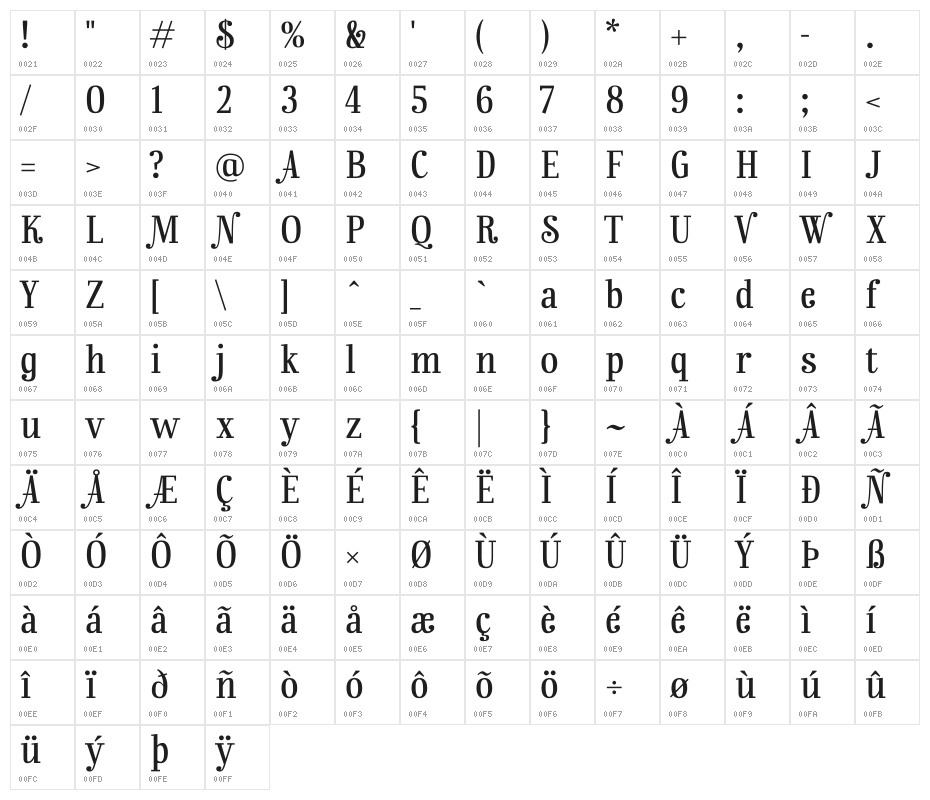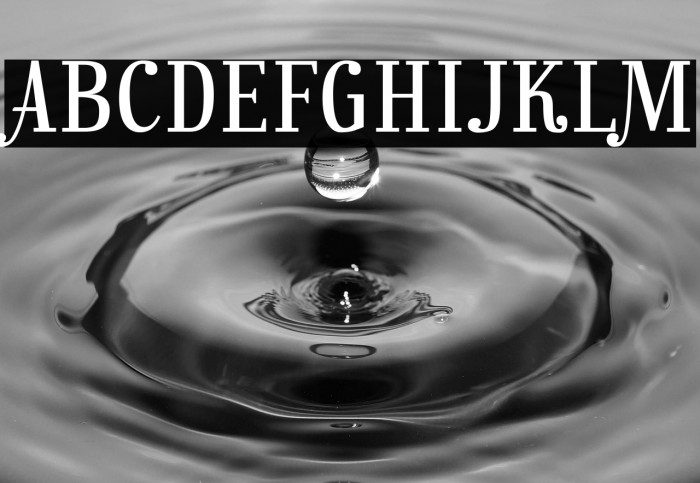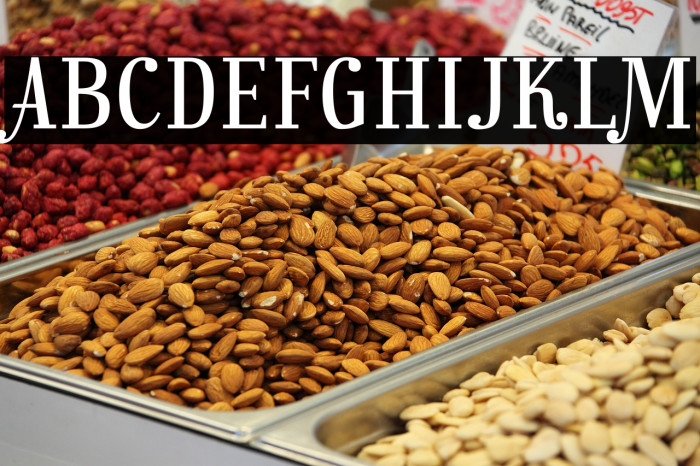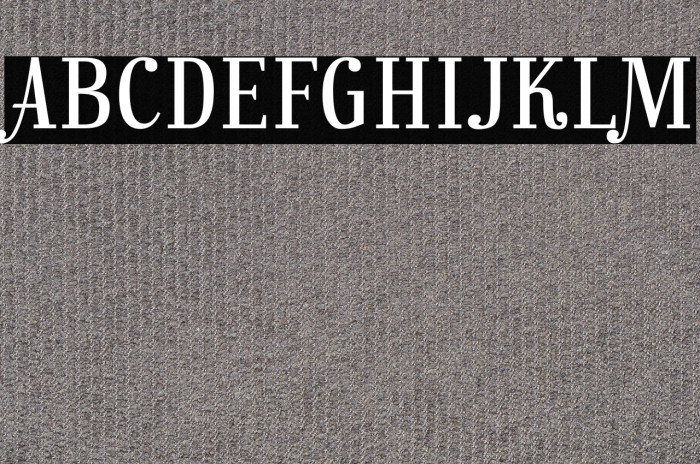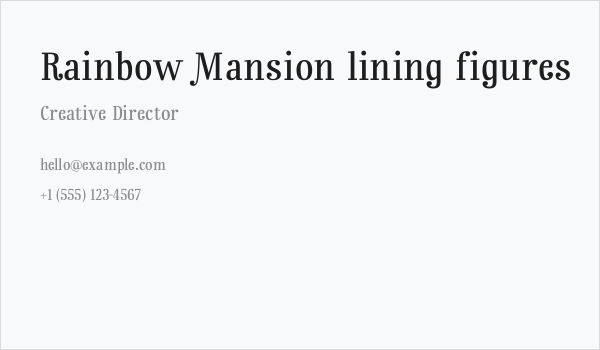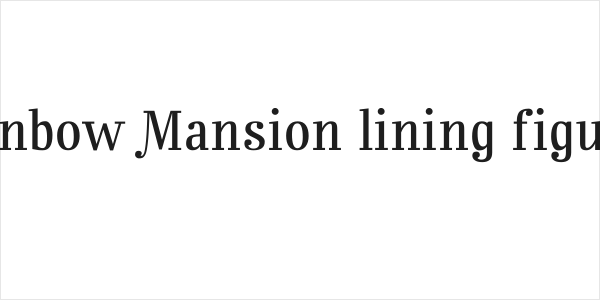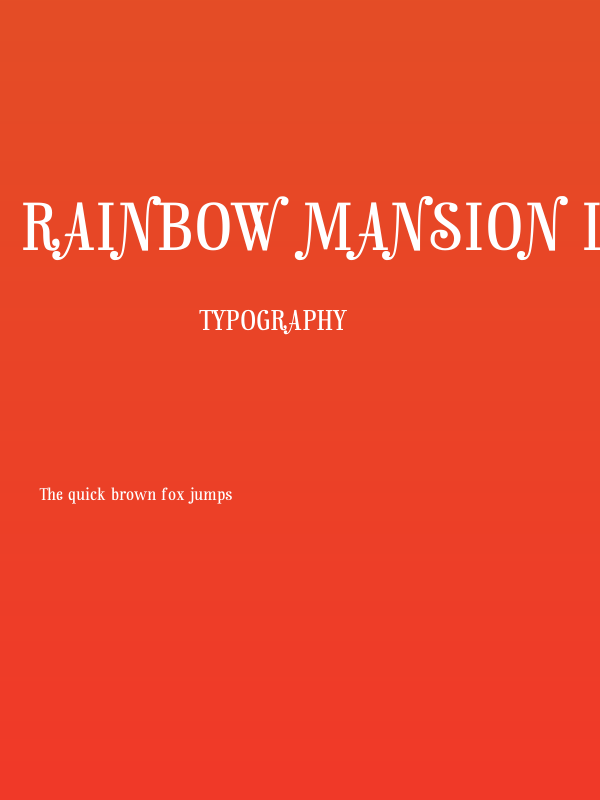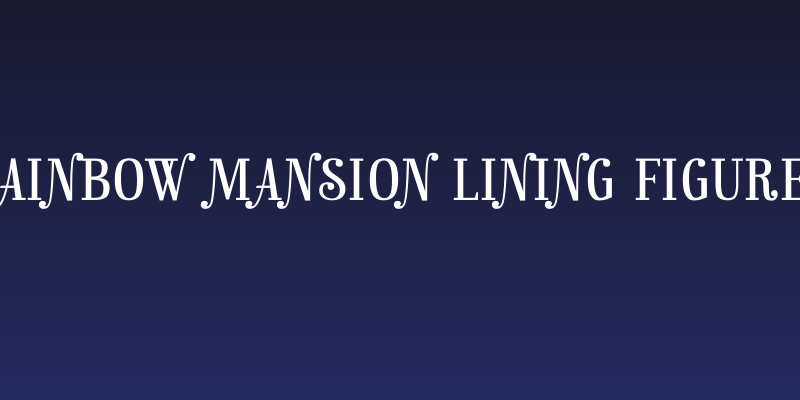
Rainbow Mansion lining figures Font
Rainbow Mansion lining figures Description
This font features a classic serif style with elegant and refined strokes. The uppercase letters are bold and commanding, while the lowercase letters maintain a consistent and harmonious flow. The numerals are clear and distinct, making them easily readable. Special characters are well-integrated, maintaining the overall aesthetic of the font. The serifs are pronounced, adding a touch of sophistication and traditional appeal. This font is versatile, suitable for both formal and creative projects, offering a timeless look that can enhance any design.
| Proposed Projects | Ideal for book covers, editorial design, formal invitations, and branding projects. |